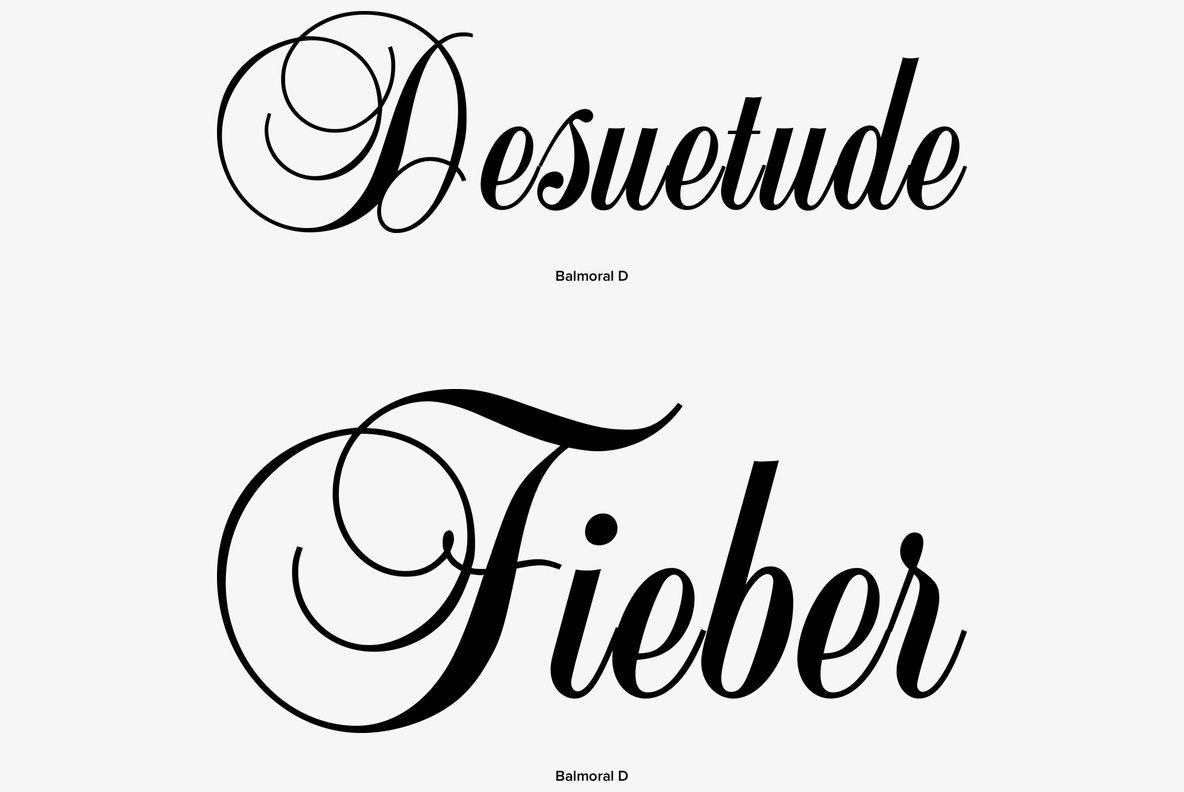
Balmoral
Designed by Martin Wait in 1978, Balmoral is a script font release by URW. Contains language support for West, East, Turkish, Baltic, and Romanian.